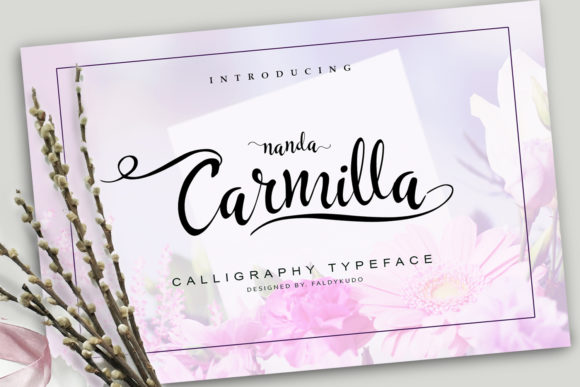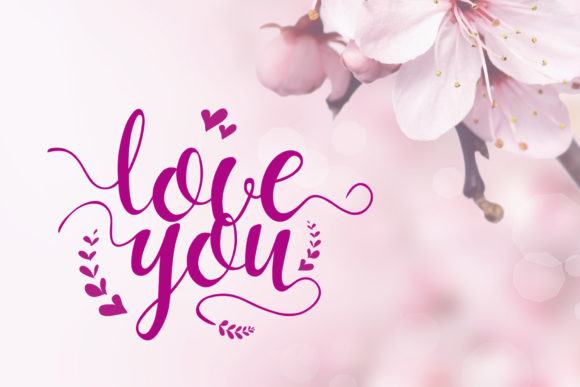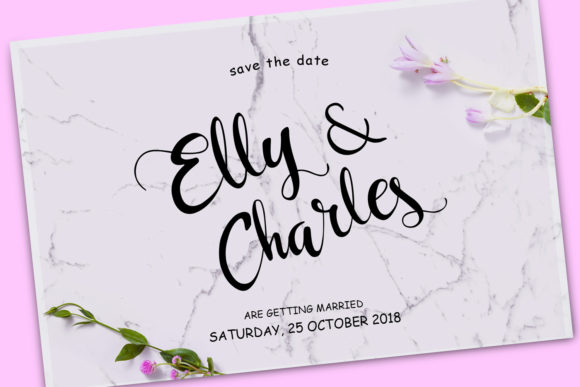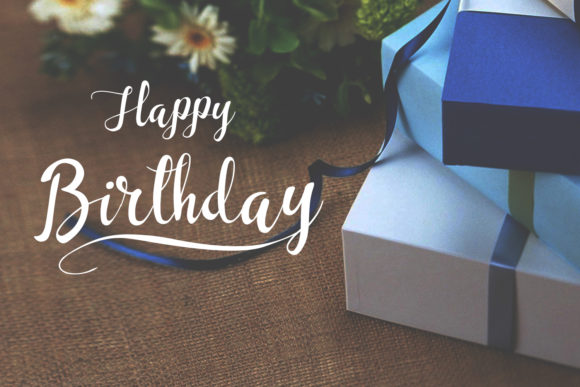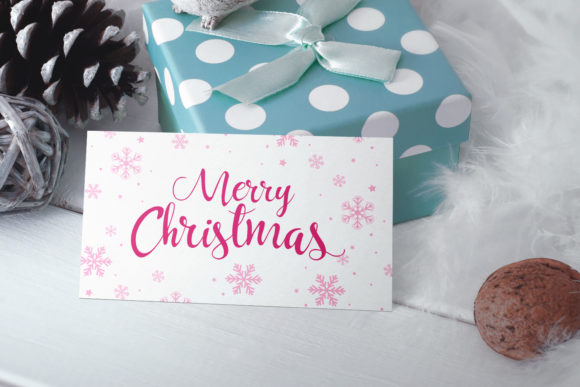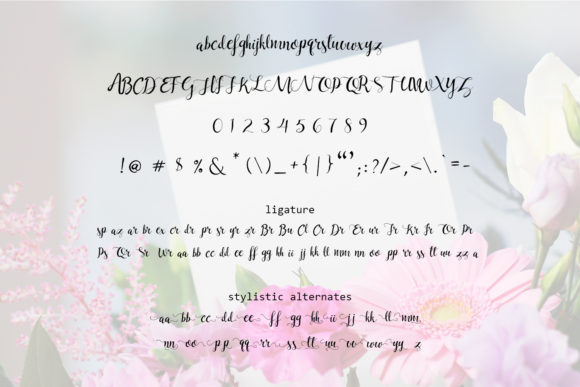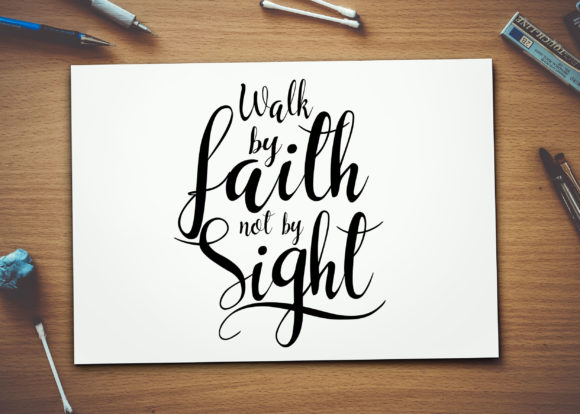
Carmilla Font
About Carmilla Font
The Carmilla is a beautiful, modern calligraphy font.
This is hand-lettered script will look gorgeous on all your designs, wedding invites, branding materials, business cards, and quotes.